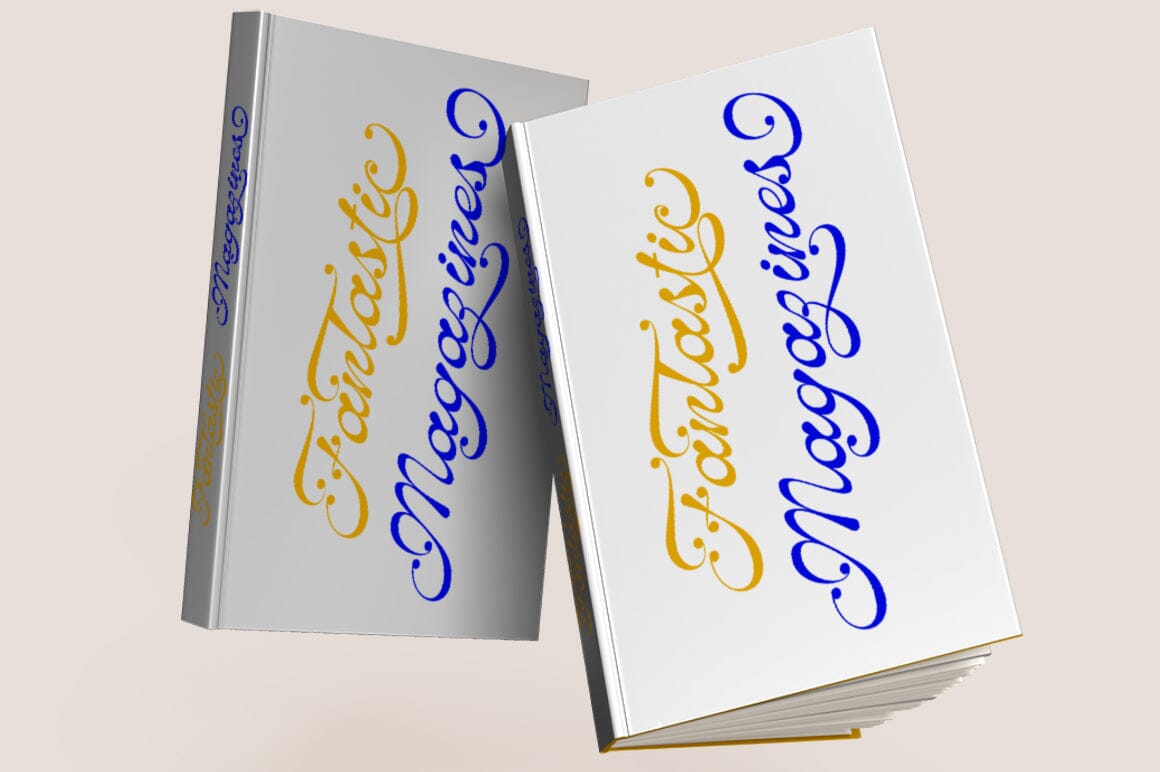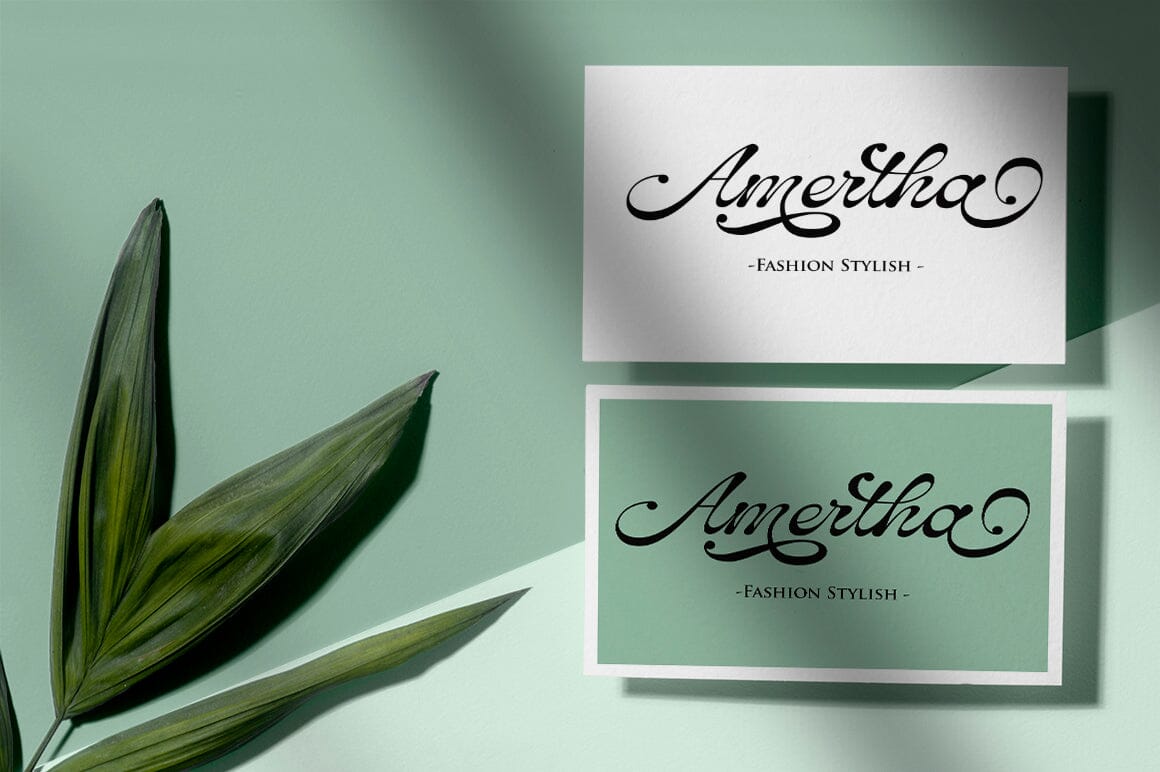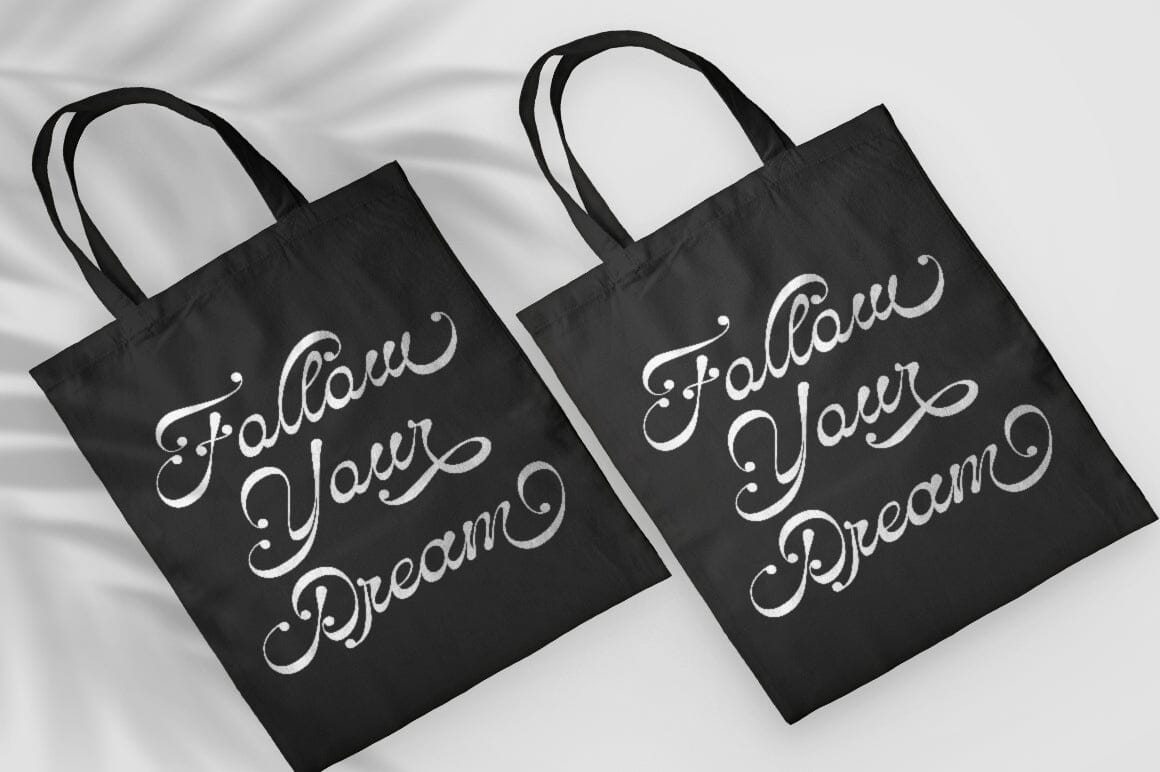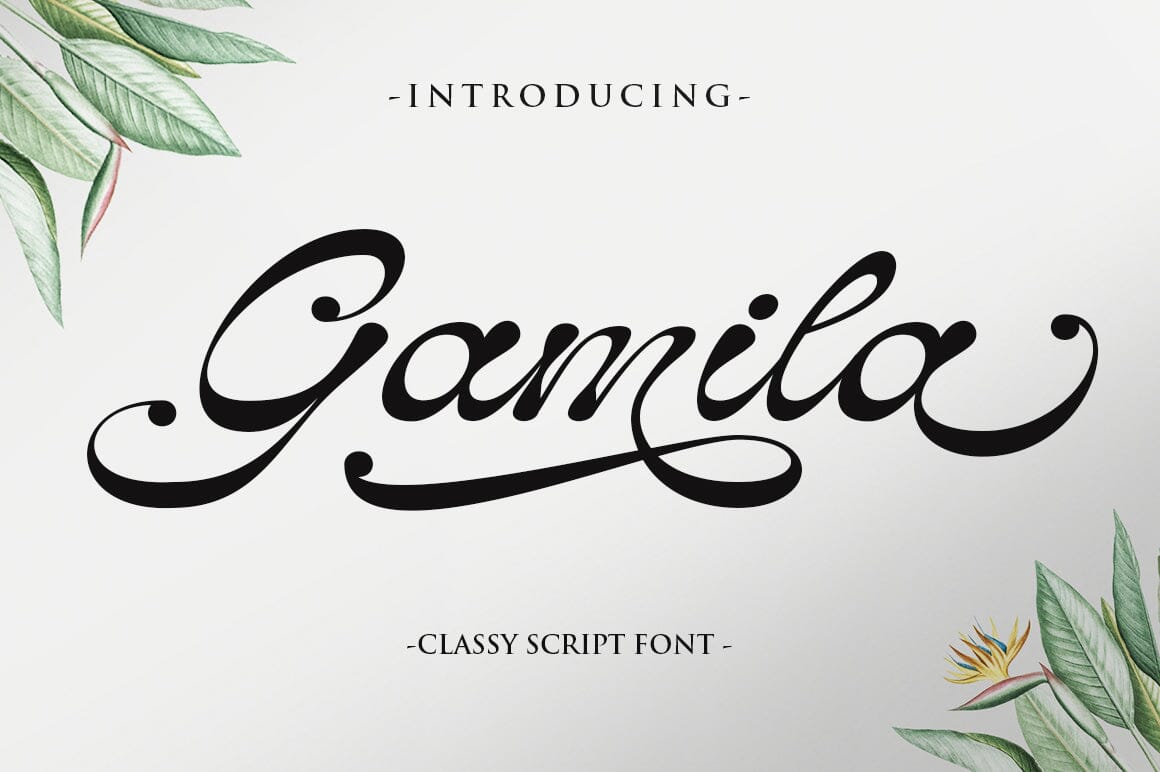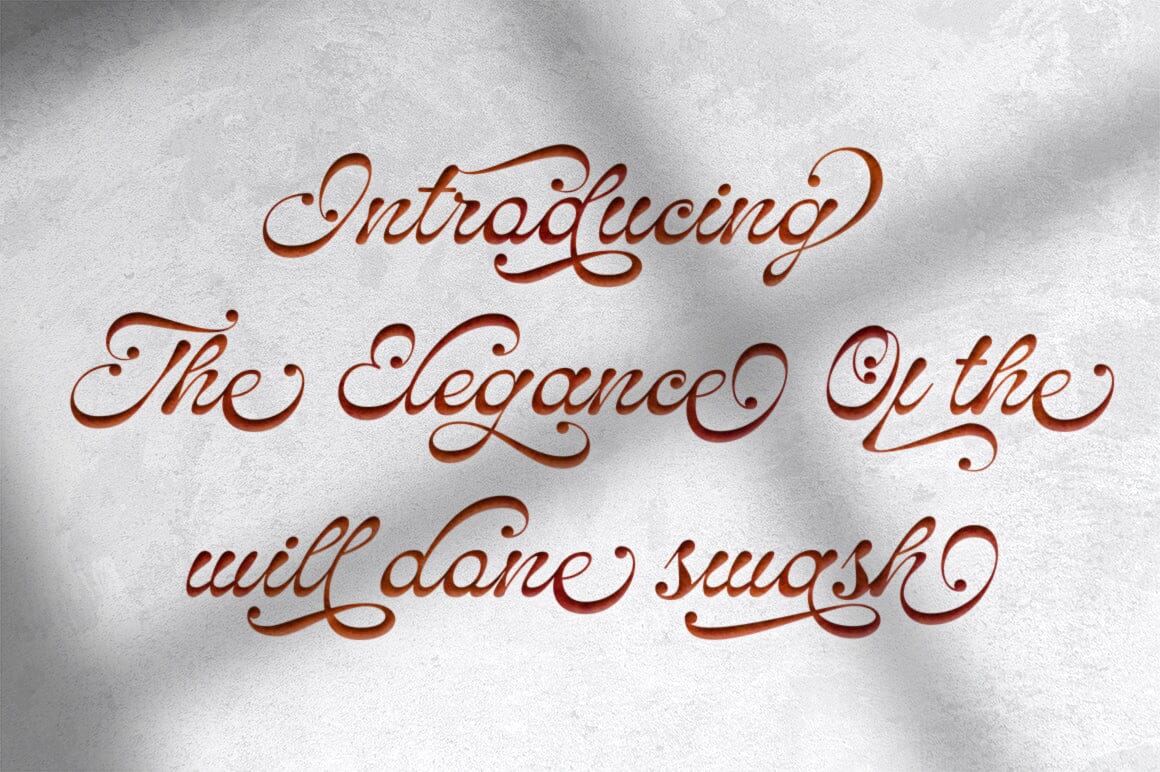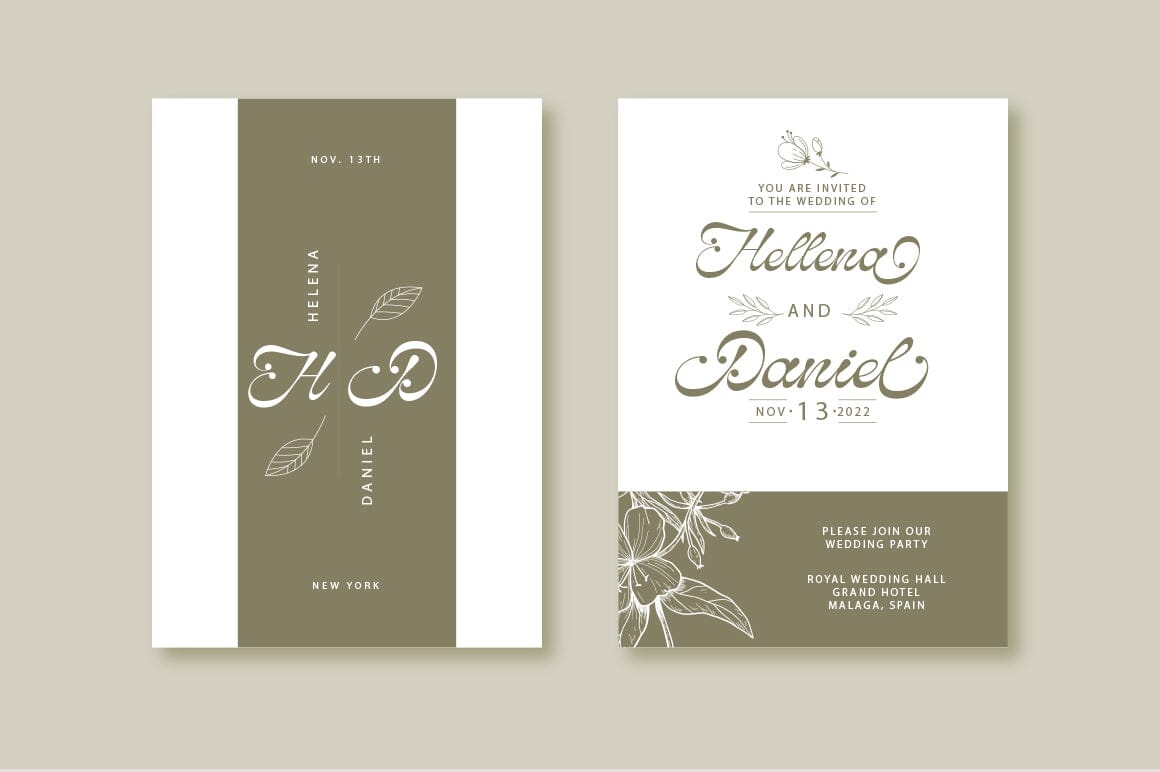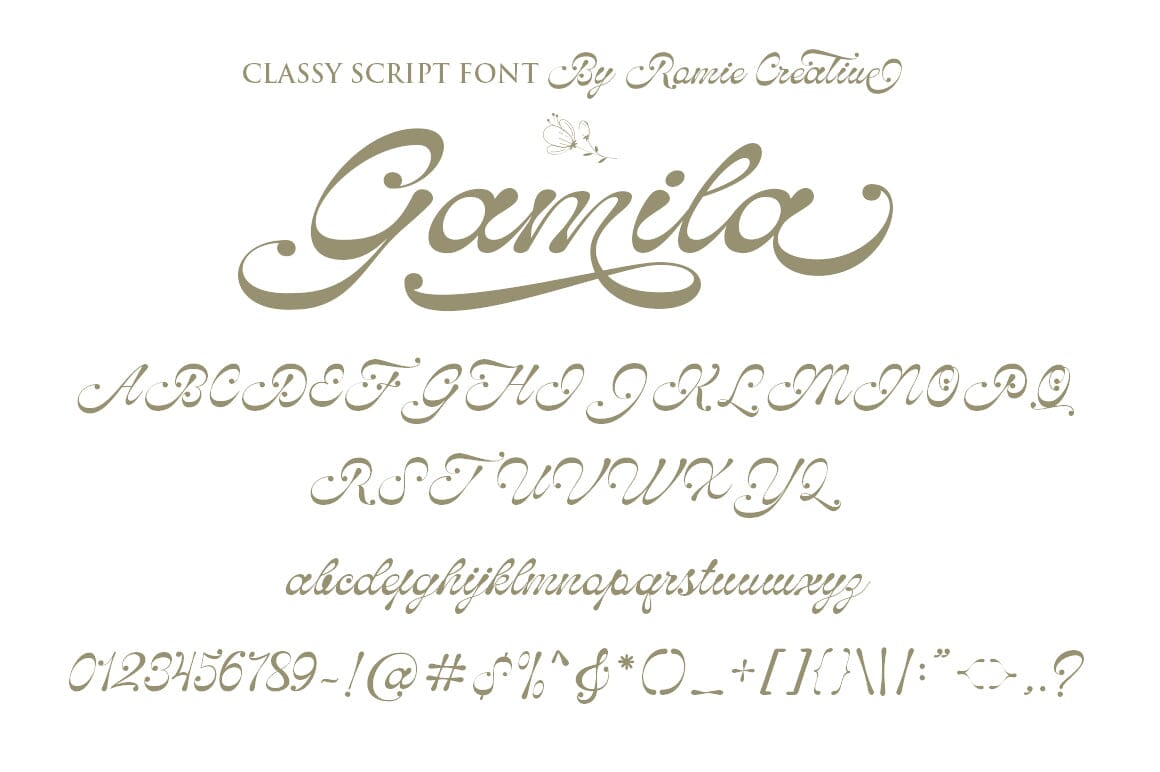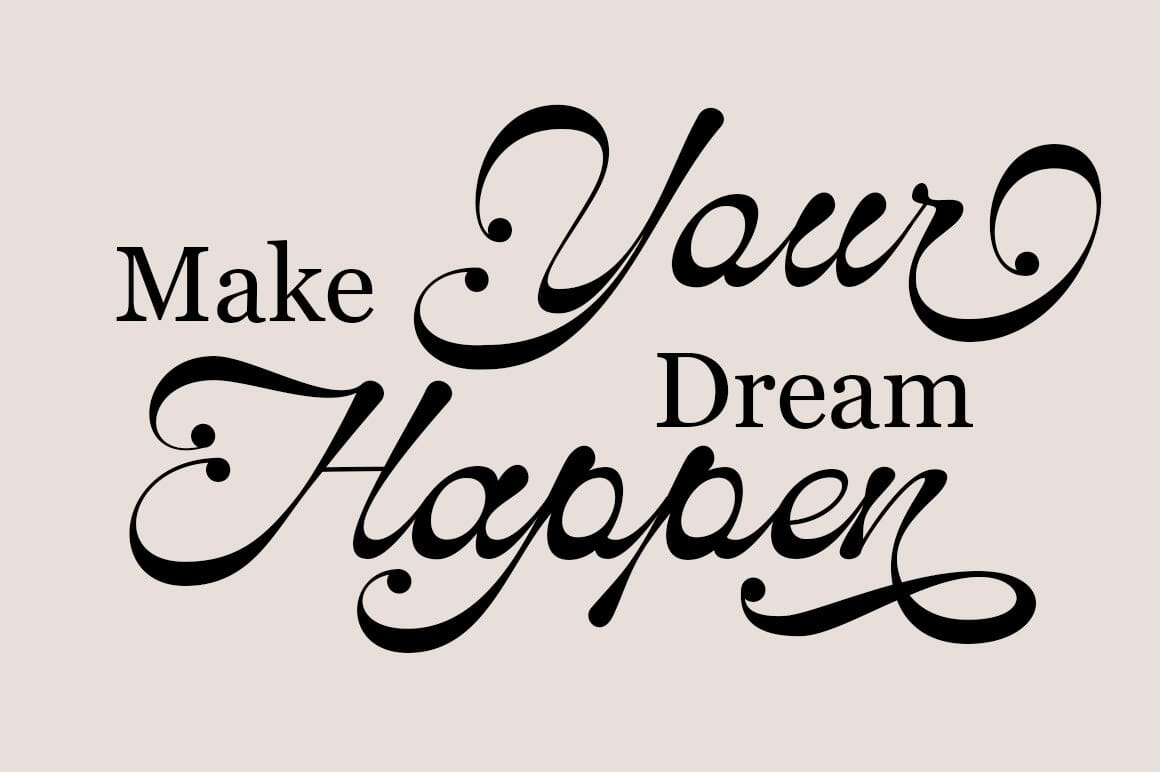
Gamila
Gamila is a modern classic style script font inspired by classic handwriting in books. This font comes with 110+ stylistic sets, Contextual Alternative, ligatures and also multi-language support which adds to the aesthetic that makes your work more attractive. This font is perfect for your creative projects like Logotype, printed quotes, invitations, cards, product packaging, headers, Letterheads, Clothing, Web design, Magazines, Books, etc.